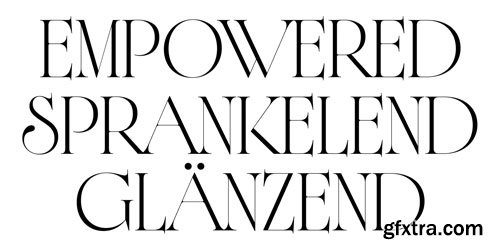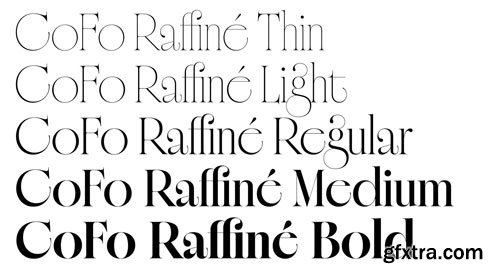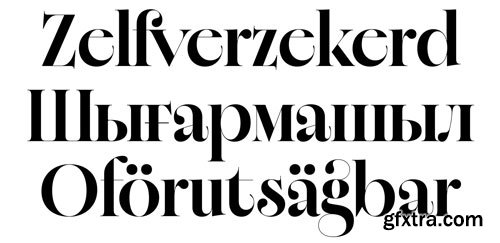
Cofo Raffine Font Family
CoFo Raffine is an eclectic typeface with a vivid character. Packed with personality on many levels, it is bursting with confidence, energy and style. An amplified variation in proportions makes typesetting any word, title or sentence unpredictable and exciting. The difference in proportions exists not only in the width of characters, but also in the exaggerated forms of individual letters. This deliberate asymmetry increases even further by a carefully balanced selection of swashes and ligatures.